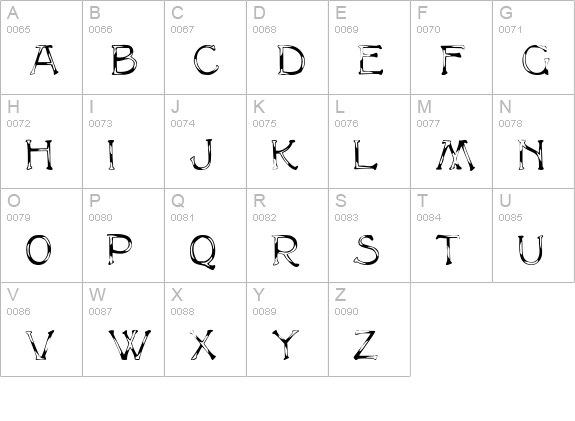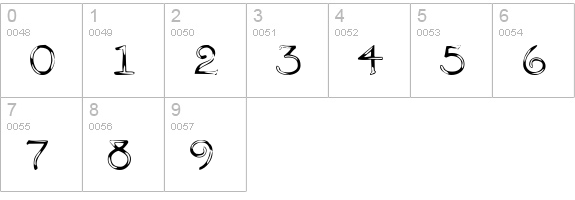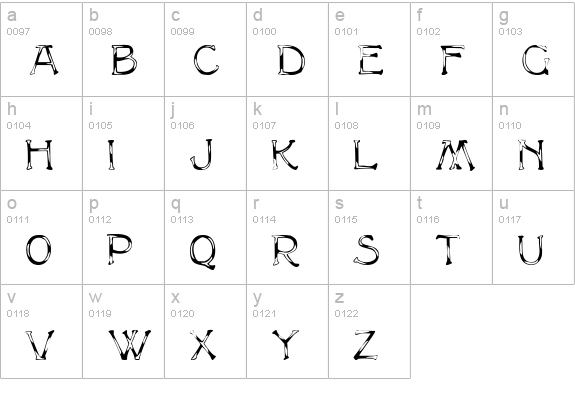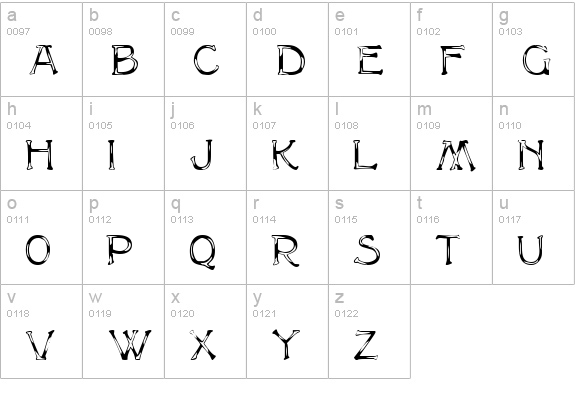
CammyCapsDisplay Font Details
CammyCapsDisplay font is a stylish and modern display typeface that exudes elegance and sophistication. With its unique and eye-catching design, CammyCapsDisplay is perfect for adding a touch of flair to your projects. Featuring bold and striking letterforms, this font is sure to make a statement wherever it is used. The best part? CammyCapsDisplay font is absolutely free to download at FontsMarket.com. Whether you're working on a poster, logo, or any other design project, this font is a fantastic choice for adding a touch of creativity. So why wait? Download CammyCapsDisplay today and elevate your designs to the next level!